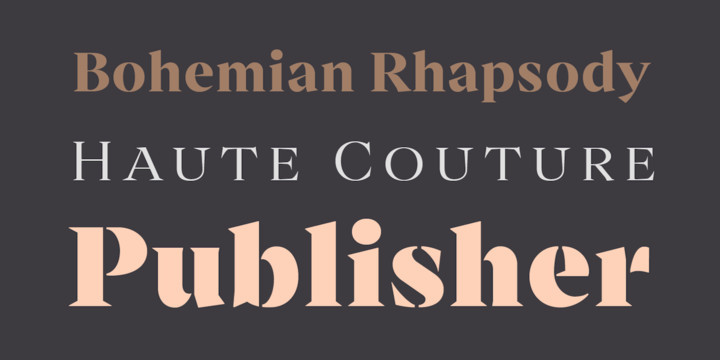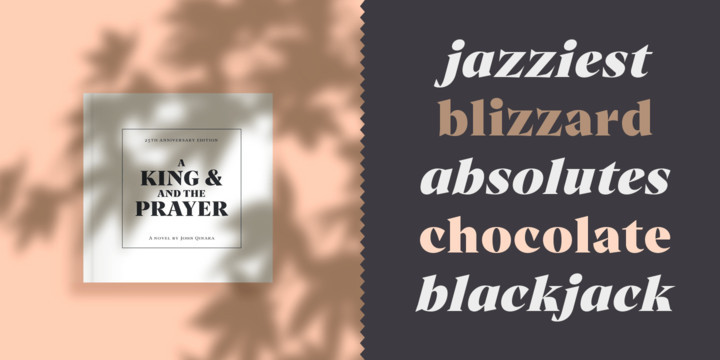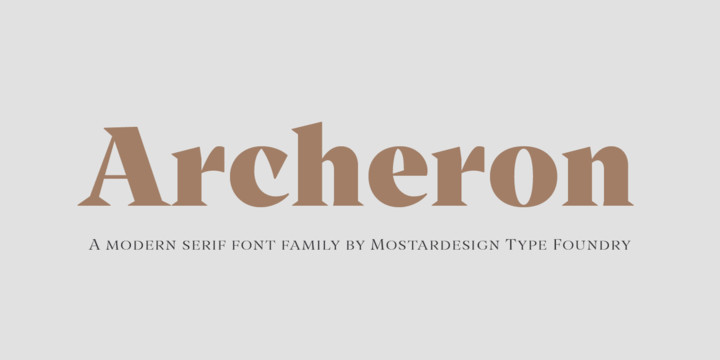
Archeron Pro Font
Archeron Pro is a modern serif font family with 18 fonts ranging from light to Heavy with the corresponding italics. This new font family revisits the neo-classical style of highly contrasted serifs and brings a resolutely contemporary touch to graphic or editorial projects. Archeron Pro has also been designed with high-contrast character ratios and a high x-height to give sentences more rhythm and legibility to long texts for on-screen display or printed materials.